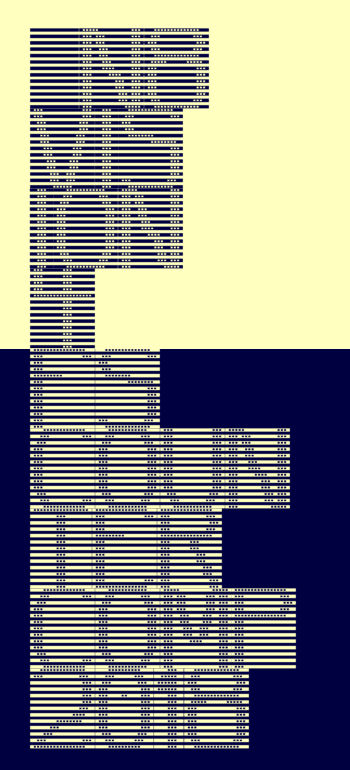
• Another example of glyphs acting as the counter in a space, and this space filling the usual "glyph's white space" in the way the counters were described for the competition.